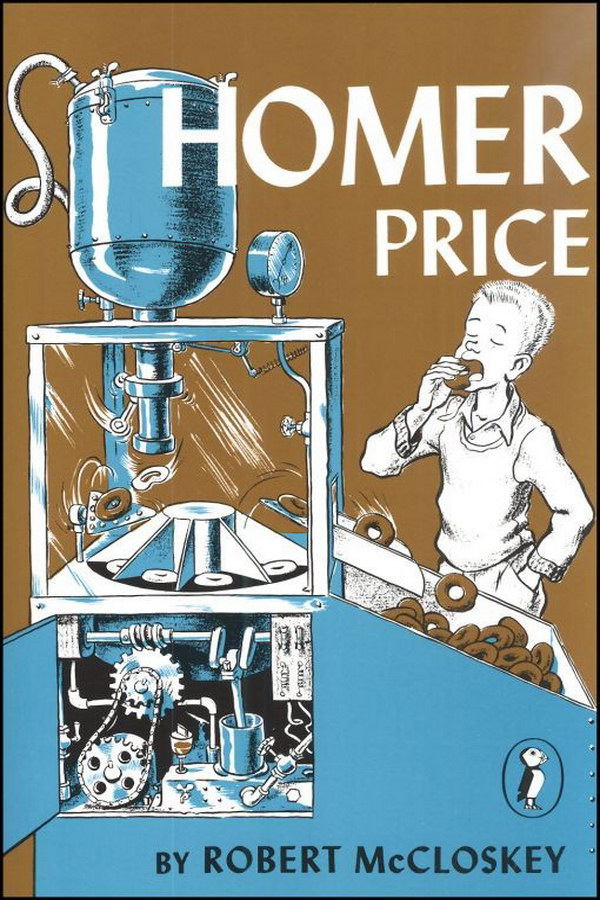
Homer Price Font
BookHomer Price is a children's book written and illustrated by Robert McCloskey. The book is a collection of stories set in the small town of Centerburg, Ohio, and centers around the adventures of a young boy named Homer Price. The title Homer Price on the book cover is very similar to a calligraphic sans serif called Lydian, designed by Warren Chappell.